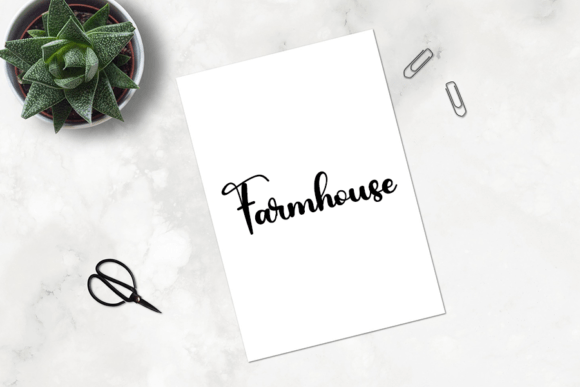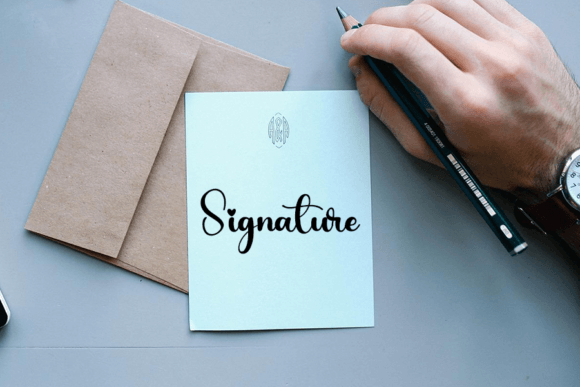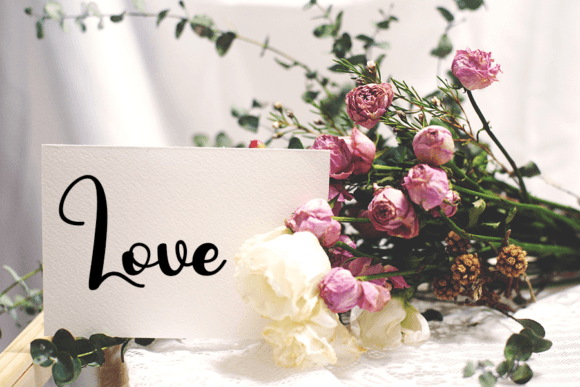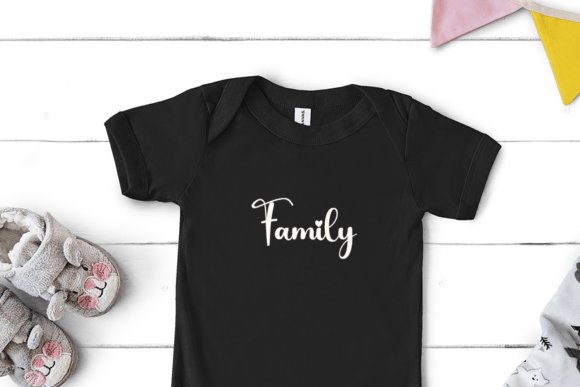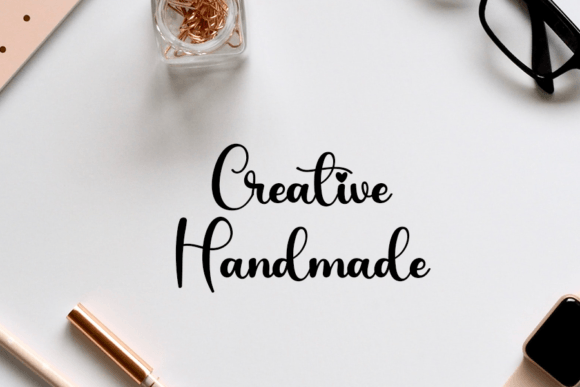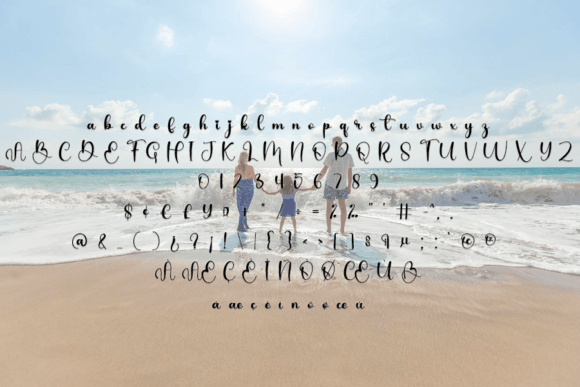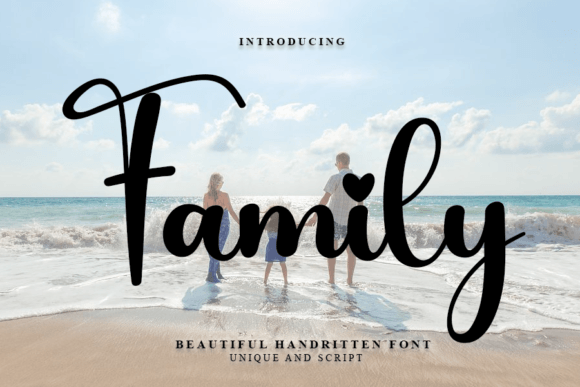
Introducing Family Font: A Delicate Handwritten Style for Unique Designs
Are you a designer or crafter looking for a font that adds a personal touch to your creations? Look no further than Family Font, a delicate handwritten font carefully crafted for a cool and unique design. This versatile font is perfect for writing letters, invitations, food products, titles, and more, allowing you to add a touch of elegance and sophistication to your work.
What is Family Font?
Family Font is a beautifully designed handwritten font that is both elegant and approachable. Its delicate strokes and carefully crafted letterforms make it perfect for a wide range of design applications, from formal invitations to social media graphics. The font’s unique style is sure to capture the attention of your audience and leave a lasting impression.
Key Features of Family Font
- Delicate Handwritten Style: Family Font features a beautiful, handwritten style that is both elegant and approachable.
- Unique Letterforms: Each letterform in Family Font has been carefully crafted to ensure a unique and distinctive look.
- Versatile: This font can be used for a wide range of design applications, including letters, invitations, food products, titles, and more.
- Easily Readable: Despite its delicate style, Family Font is easily readable, making it perfect for body text and captions.
Use Cases for Family Font
Family Font is an incredibly versatile font that can be used in a variety of design applications. Here are a few ideas to get you started:
- Invitations: Use Family Font to create beautiful, formal invitations for weddings, baby showers, and other special occasions.
- Food Products: Add a touch of elegance to your food product labels and packaging with Family Font.
- Social Media Graphics: Use Family Font to create eye-catching social media graphics, including quotes, promotions, and more.
- Blog Posts: Add a personal touch to your blog posts with Family Font, perfect for headings, titles, and captions.
Why Choose Family Font?
- Unique Style: Family Font’s delicate handwritten style sets it apart from other fonts, ensuring your designs stand out from the crowd.
- Easily Customizable: Family Font is easily customizable, allowing you to adjust the font size, color, and style to suit your design needs.
Tips for Using Family Font
- Pair with Other Fonts: Experiment with pairing Family Font with other fonts to create a unique and visually appealing design.
- Adjust Font Size and Color: Adjust the font size and color to suit your design needs, ensuring maximum impact.
- Use for Headings and Titles: Use Family Font for headings and titles to add a touch of elegance and sophistication to your designs.
Family Font is a beautiful, delicate handwritten font that is perfect for designers and crafters looking to add a personal touch to their creations. With its unique style, versatility, and ease of use, Family Font is sure to become a staple in your design toolkit. Whether you’re creating invitations, food products, social media graphics, or blog posts, Family Font is the perfect choice for adding a touch of elegance and sophistication to your designs.